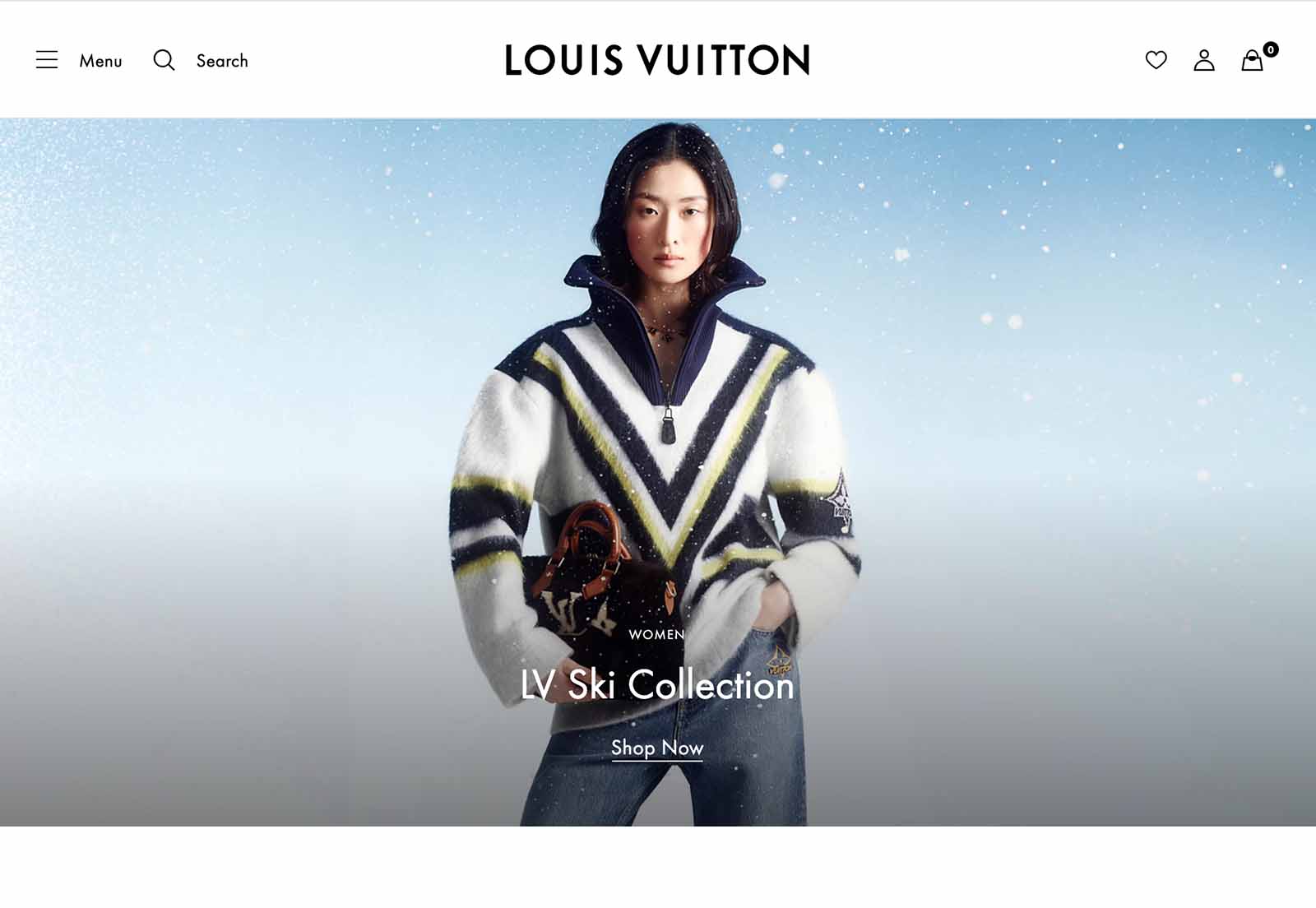
Louis Vuitton uses a custom typeface based on Futura in logo and body copy. While the original isn’t available to license, you can get a similar look with Scal, our modern take on Futura.
Scal is a geometric sans with sharp terminals and a clean structure—designed for modern brands in fashion, wellness, and design. It works well in both all caps and sentence case, making it a good fit for logos and headlines.